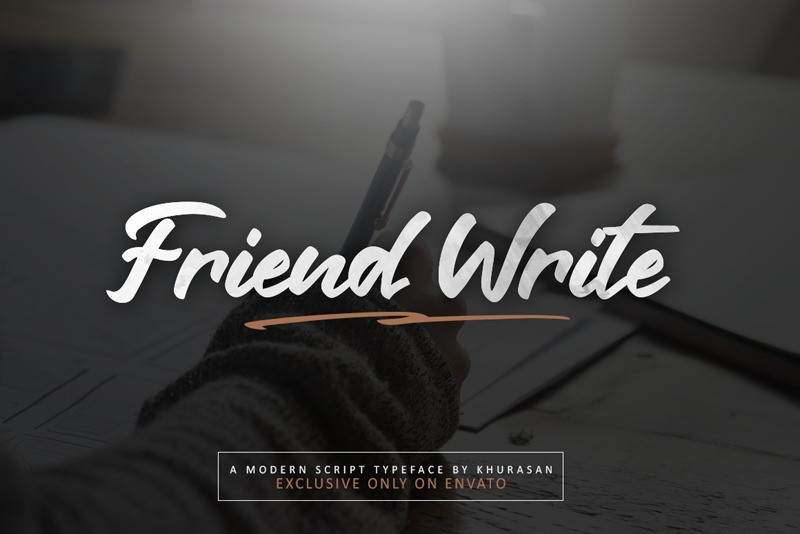
Friend Write Brush Font
Friend Write Brush Font is a fresh handwritten script font, elegant and vintage feel character set. The Friend Write font includes a full set capital and lowercase letters, as well as multi-lingual support, currency figures, numerals, & punctuation.